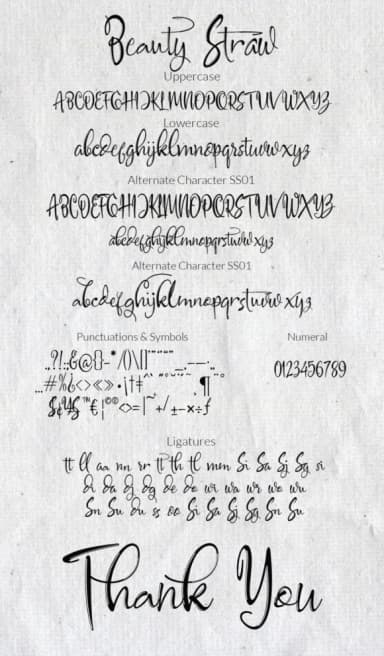
Beauty Straw by mcjer.studio is a fluid handwritten script with a distinctive textured character, designed to bring organic movement to contemporary designs. The font family includes multiple weight options, from the elegant Monoline version to the bold, impactful Beauty Straw Bold, giving designers flexibility across different applications and visual hierarchies. This versatile script excels in wedding invitation suites where its flowing letterforms add romantic charm, and works beautifully for personalized thank-you cards and save-the-date designs. The textured quality makes it particularly strong for boutique packaging projects, especially for artisanal beauty brands or handmade cosmetics labels seeking an authentic, handcrafted aesthetic. Event planners find it effective for menu cards and program covers, while the monoline option suits digital uses like Instagram post graphics and email headers. The varied weights mean you can use Beauty Straw across an entire design system without introducing additional typefaces. Whether for printed materials like business cards and stationery or digital applications requiring consistent branding, the font's character remains distinctive while maintaining readability. Its artistic construction suggests care and intentionality, making it particularly suited to luxury goods and premium service offerings. Explore Beauty Straw on Creative Fabrica to add this distinctive script to your design toolkit.
Beauty Straw Font is a script font that shines as a display or heading face. Pair it with a clean sans-serif or serif font for body text — the contrast creates a clear hierarchy while the two styles stay balanced and easy to read.